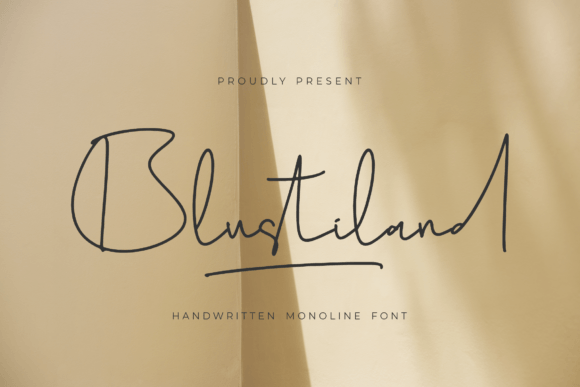
The Blustiland Font: A Beautiful Script for Creative Projects
I’ll never forget the time I was working on a branding project for a new coffee shop. I had the logo design all sorted out, but I was struggling to find the perfect font to complement it. That’s when I stumbled upon the Blustiland font, a handwritten monoline font that instantly caught my eye. In this article, I’ll share my experience with Blustiland, its features, and how to make the most of it in your creative projects.
An Honest Review of Blustiland Font
So, what makes Blustiland special? Here are some things I love about this font:
- ✨ Beautiful script taste: Blustiland has a unique, elegant feel to it that’s perfect for projects that need a touch of sophistication.
- ✅ Highly versatile: This font is suitable for a wide range of projects, from logos and branding to homeware designs, product packaging, and more.
- ✅ Easy to read: Despite its elegant feel, Blustiland is surprisingly easy to read, even in smaller sizes.
Of course, no font is perfect, and Blustiland has a few small quirks:
- 🤔 Limited use in very small sizes: While Blustiland is generally easy to read, it can get a bit tricky to read in very small sizes (e.g., 8-10pt).
- ⚠️ No built-in bold weight: If you need a bold version of Blustiland, you’ll need to use a faux bold or a different font altogether.
- Experiment with OpenType features like Stylistic Alternates to add some extra flair to your text.
The Story Behind Blustiland Font
Blustiland was designed with the goal of creating a beautiful, elegant script font that’s easy to read and versatile. The designer wanted to create a font that would be perfect for creative projects, from logos and branding to homeware designs and product packaging.